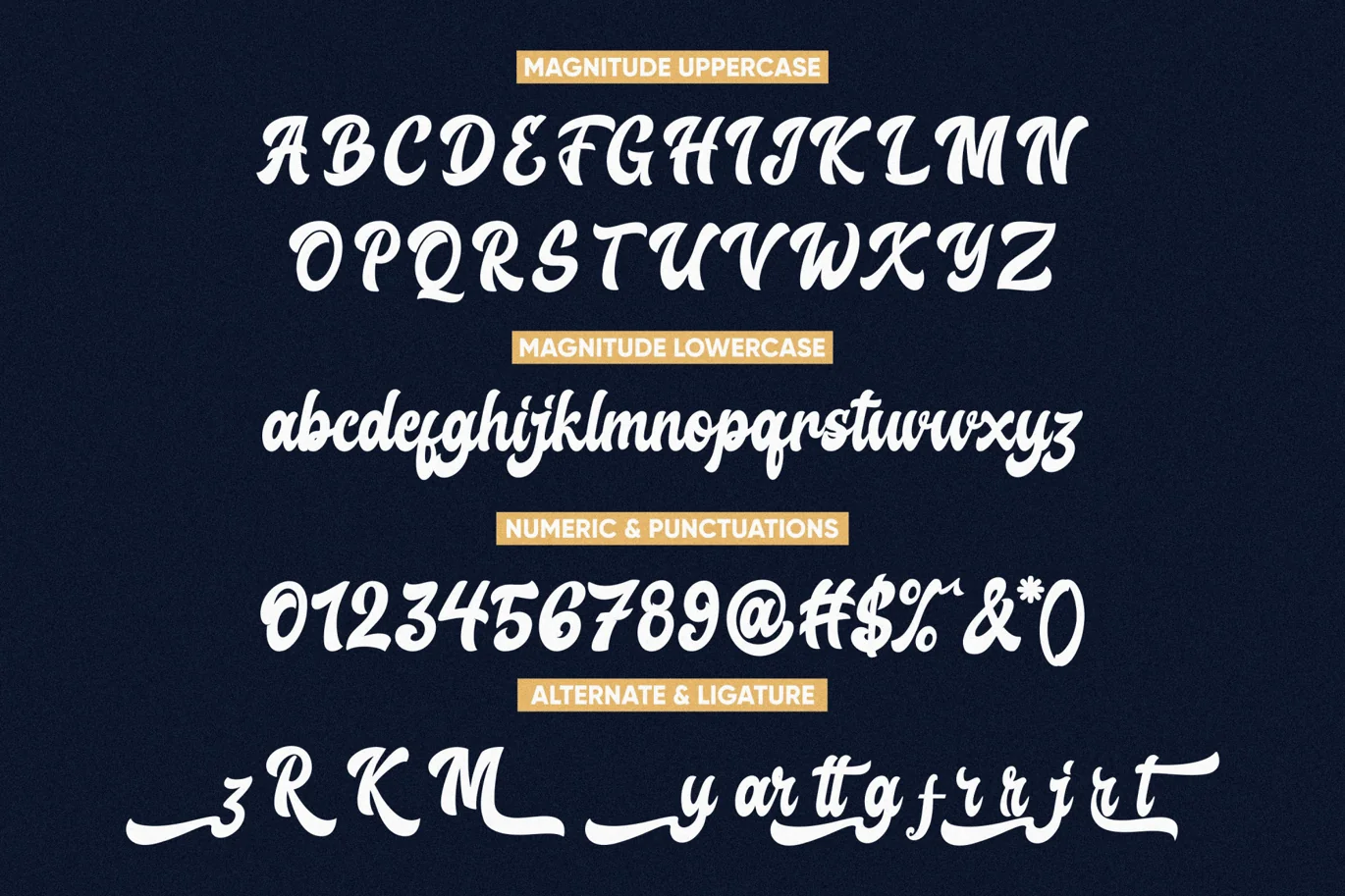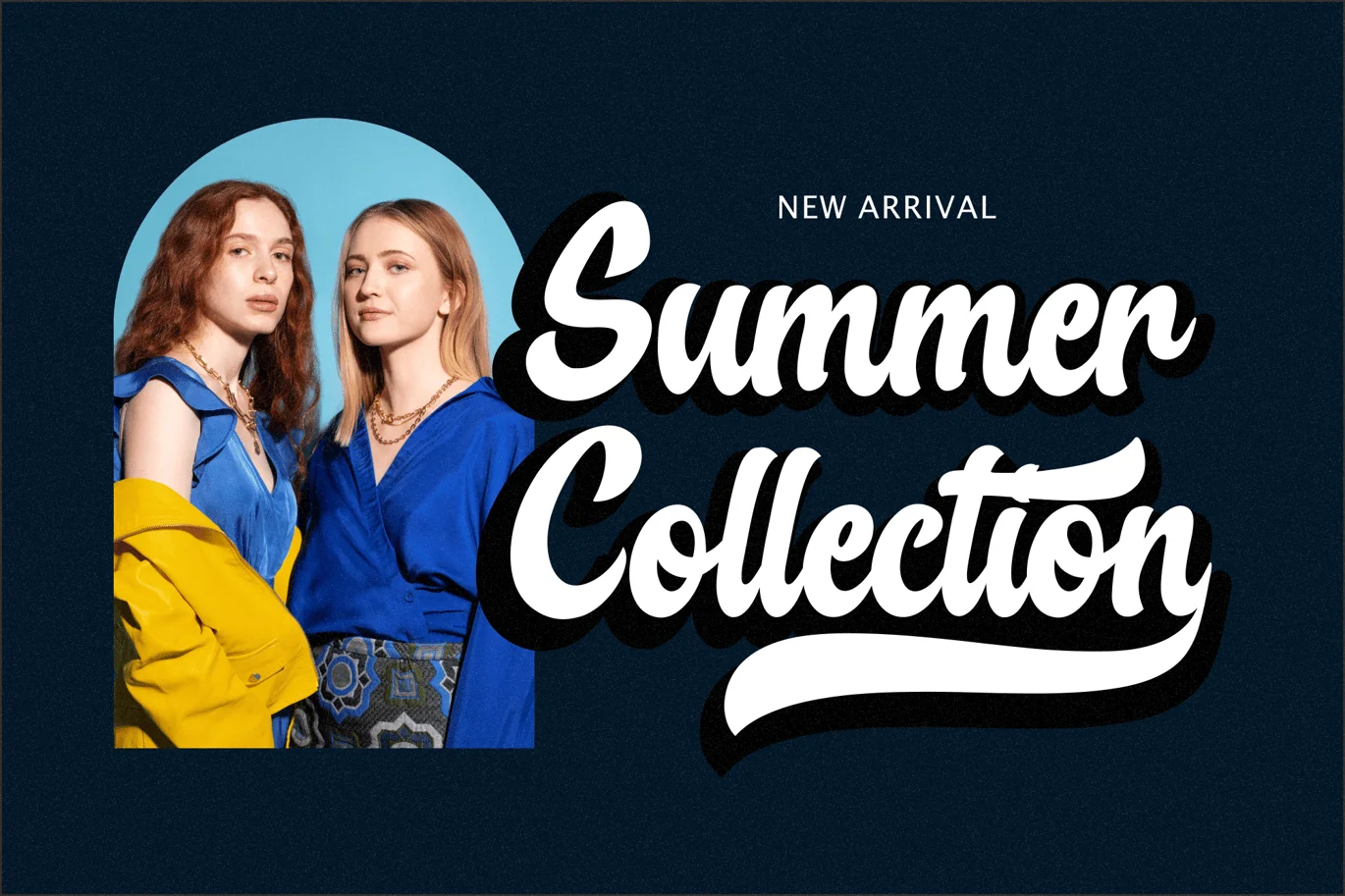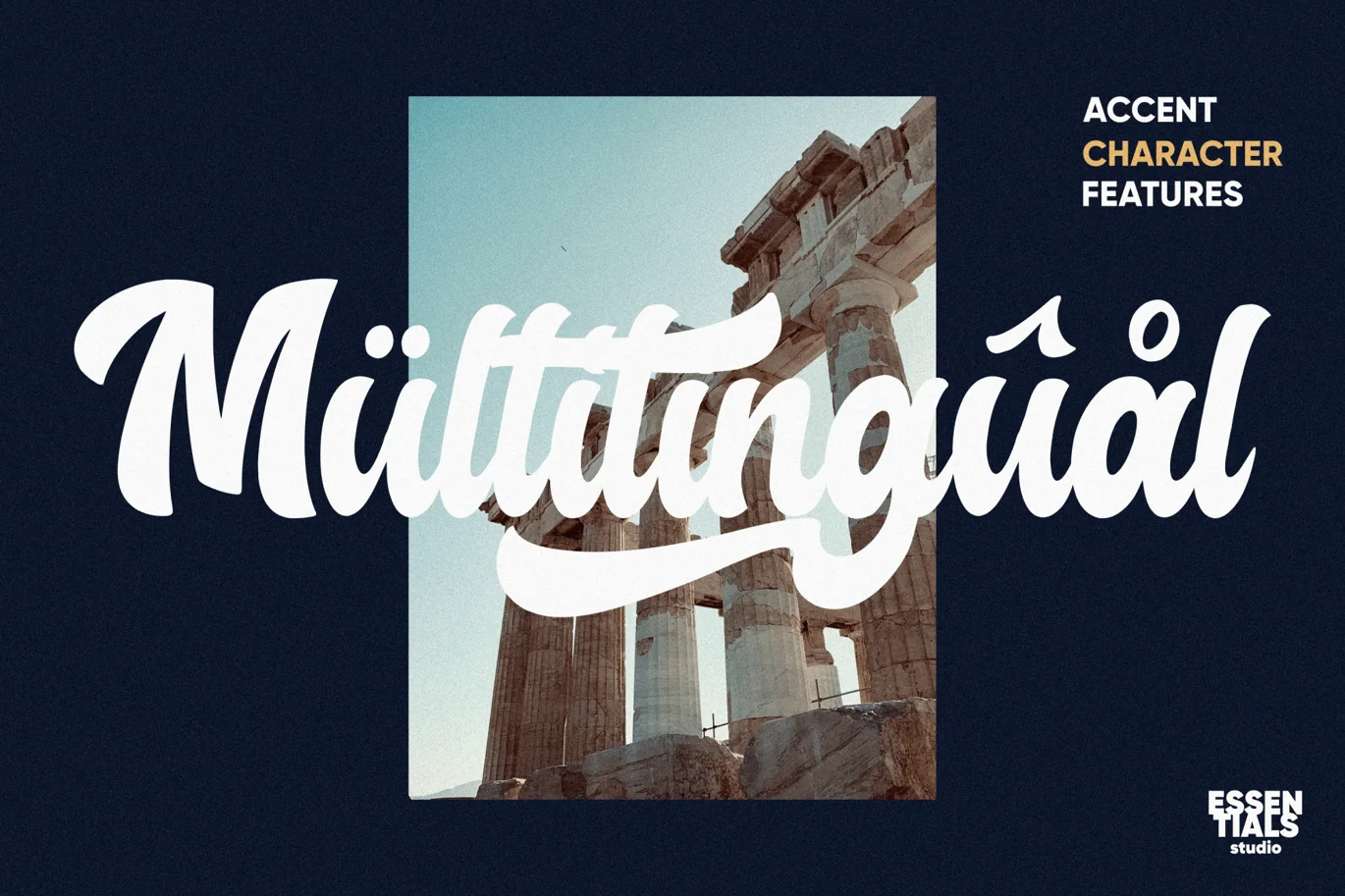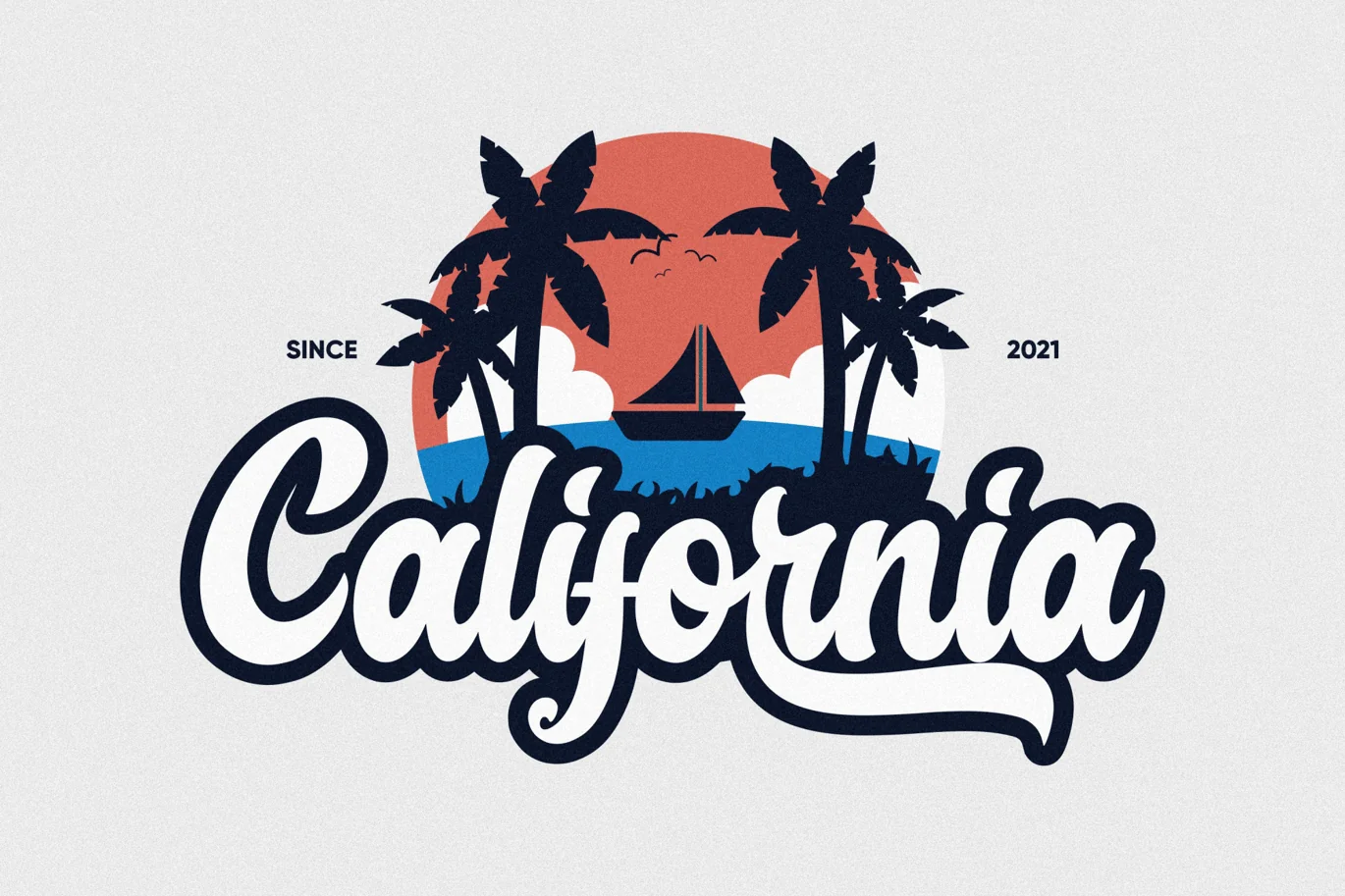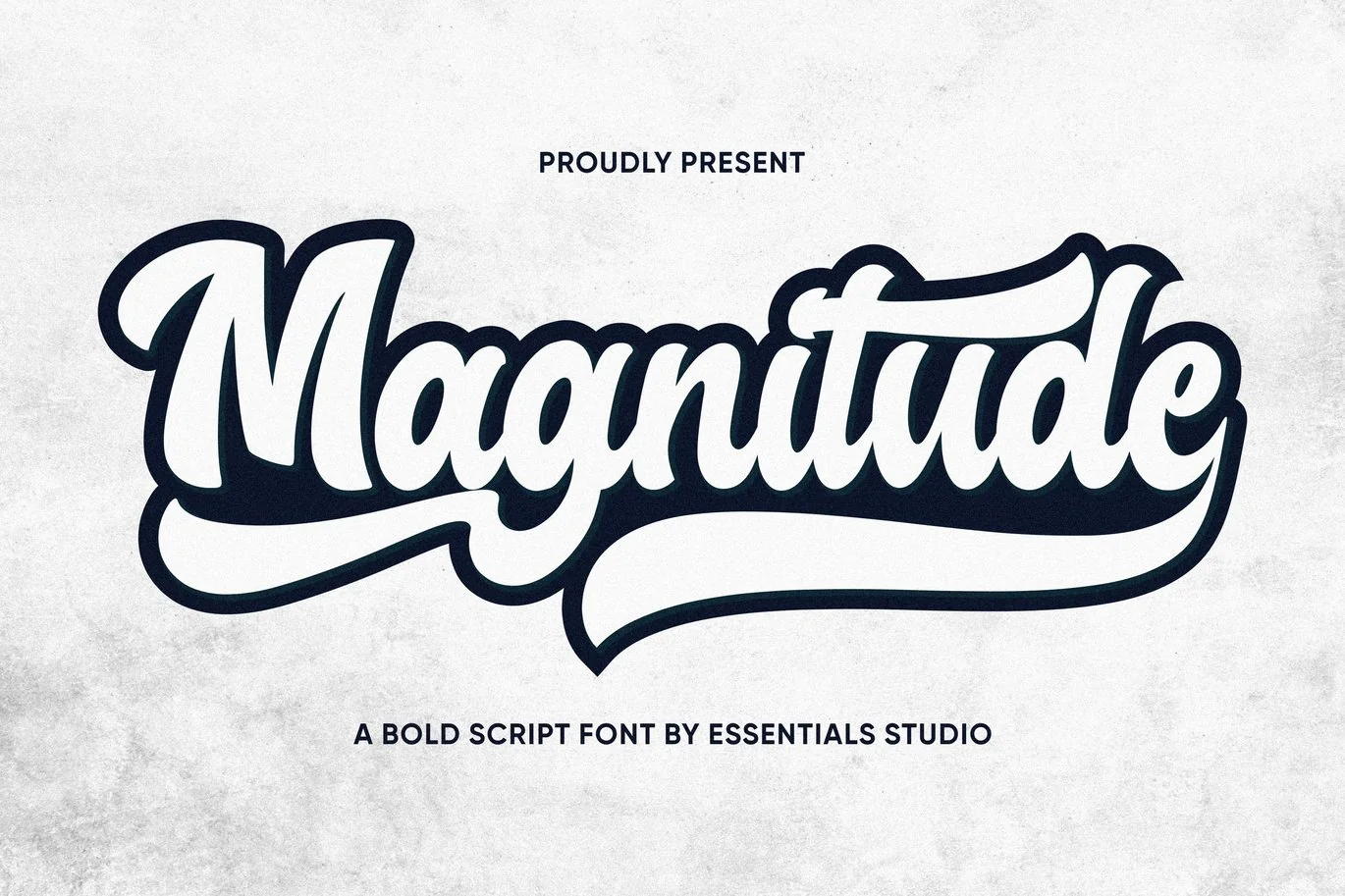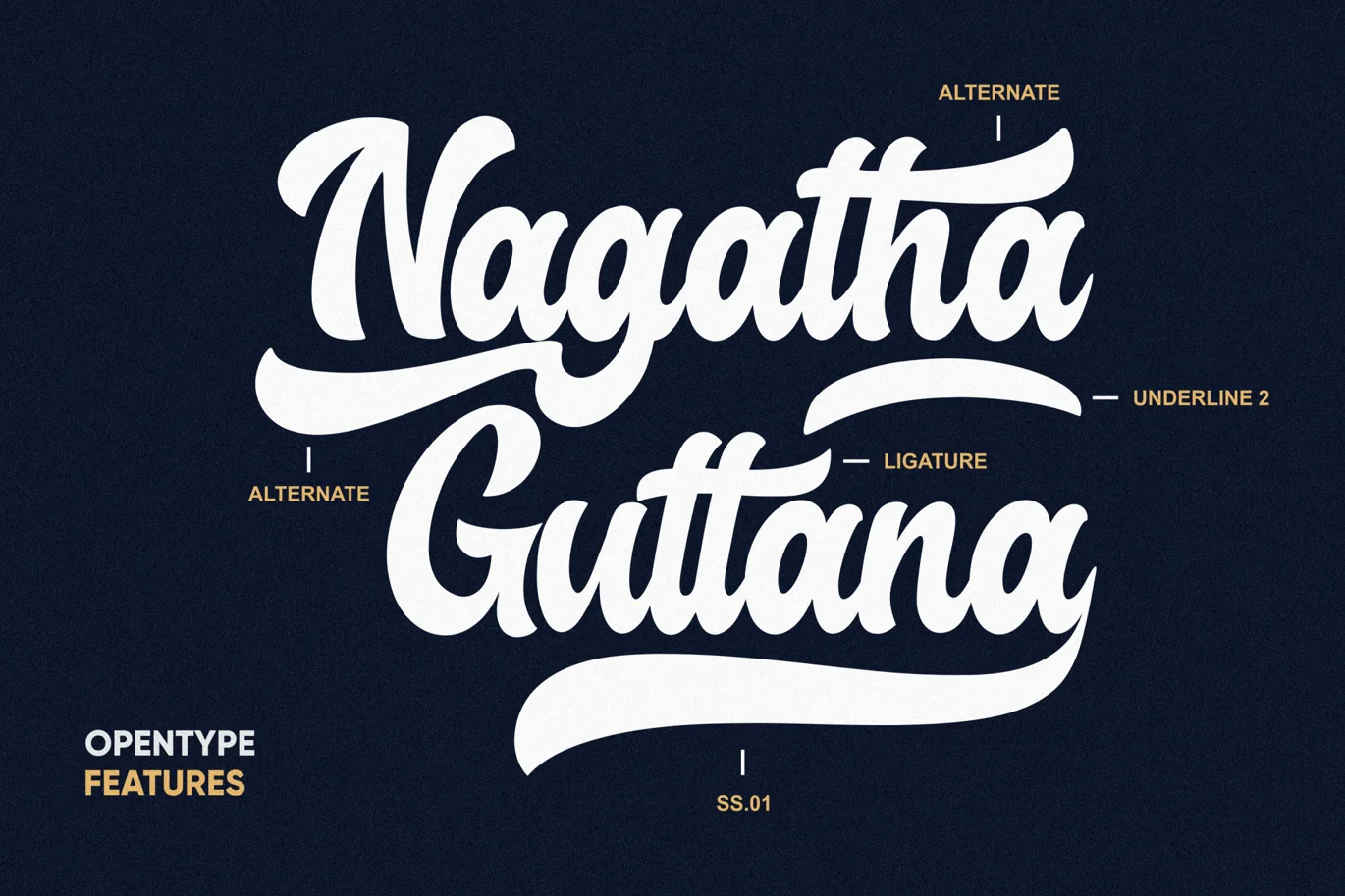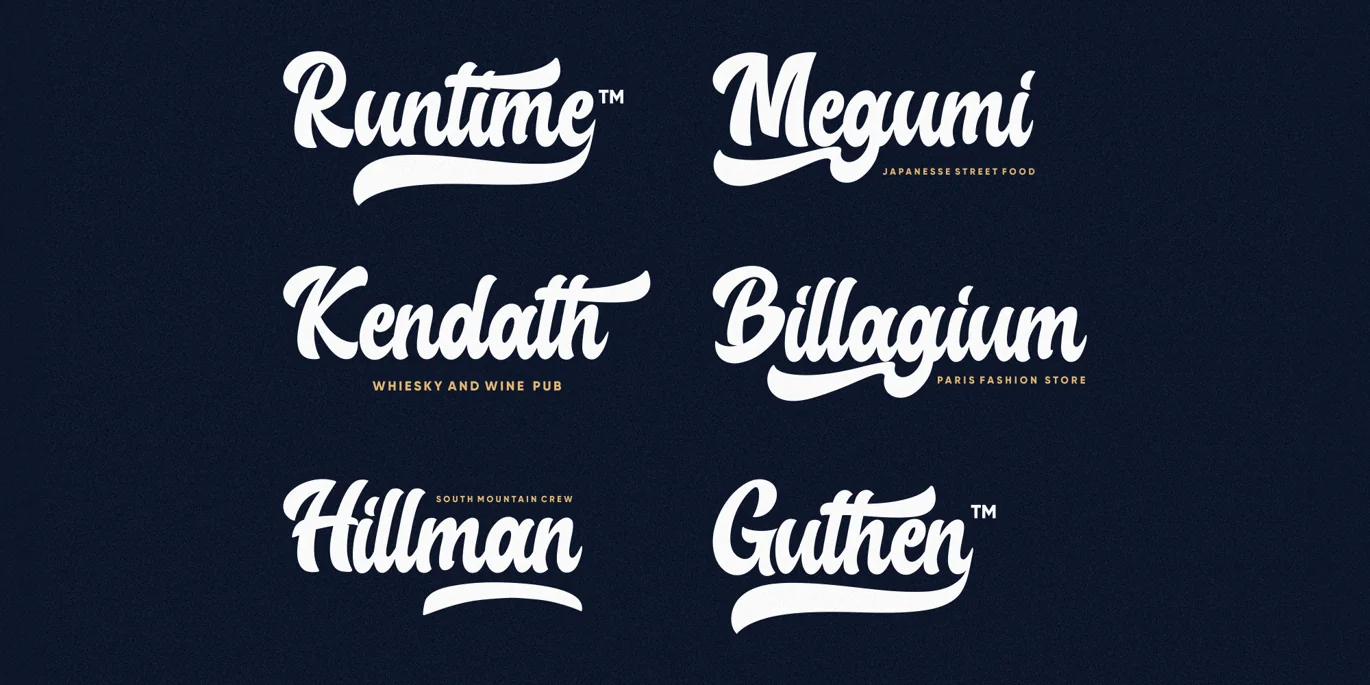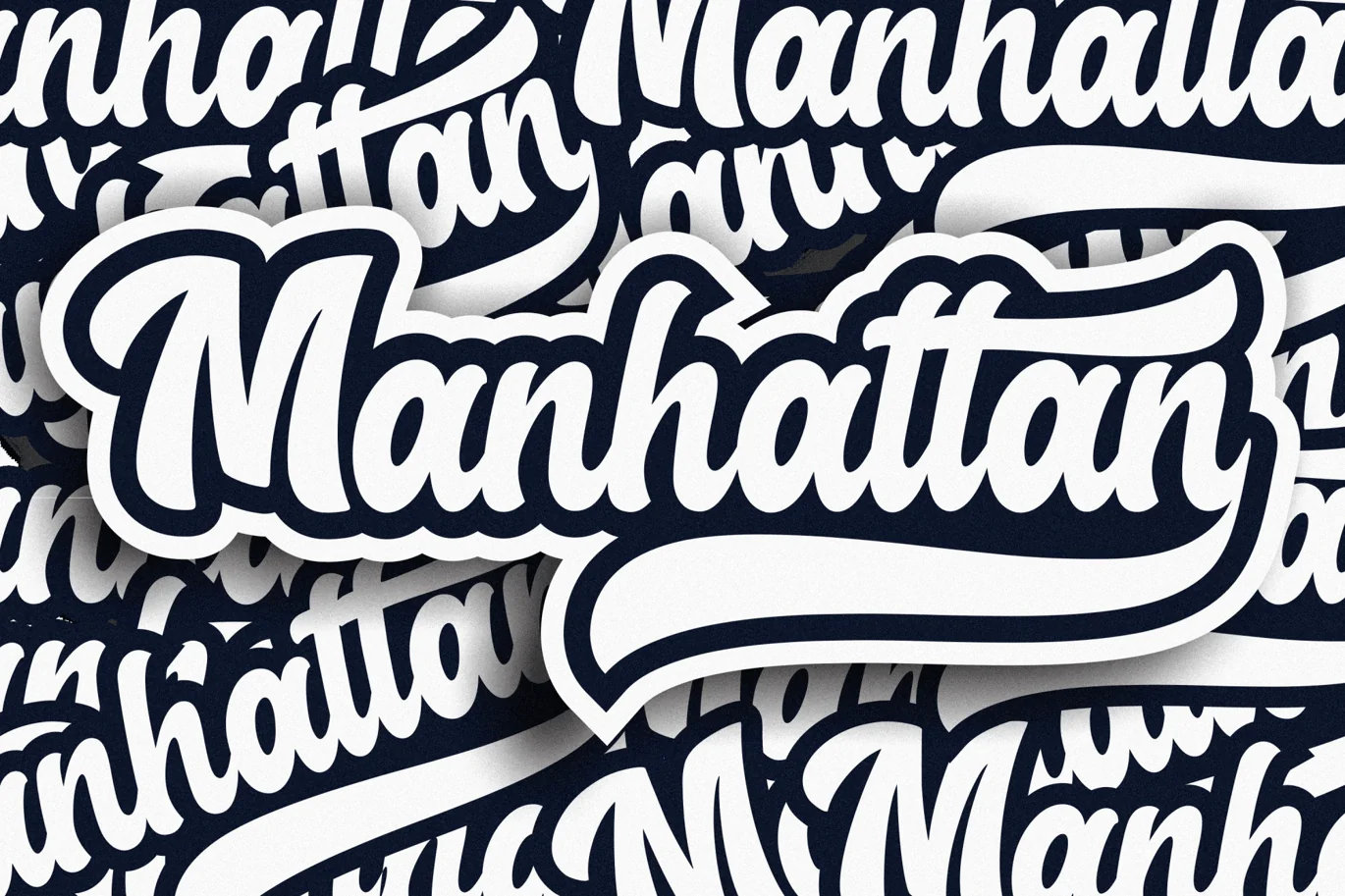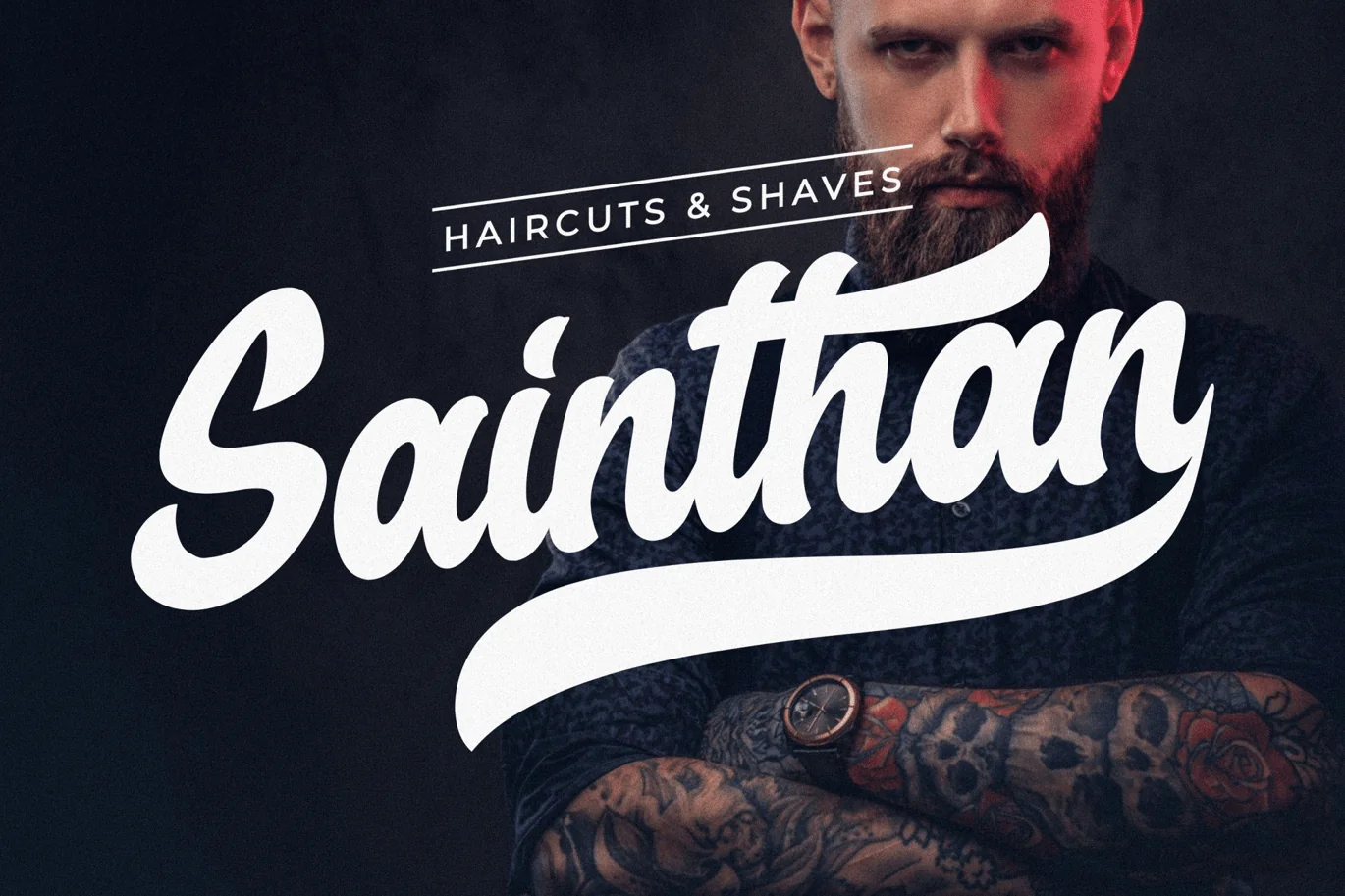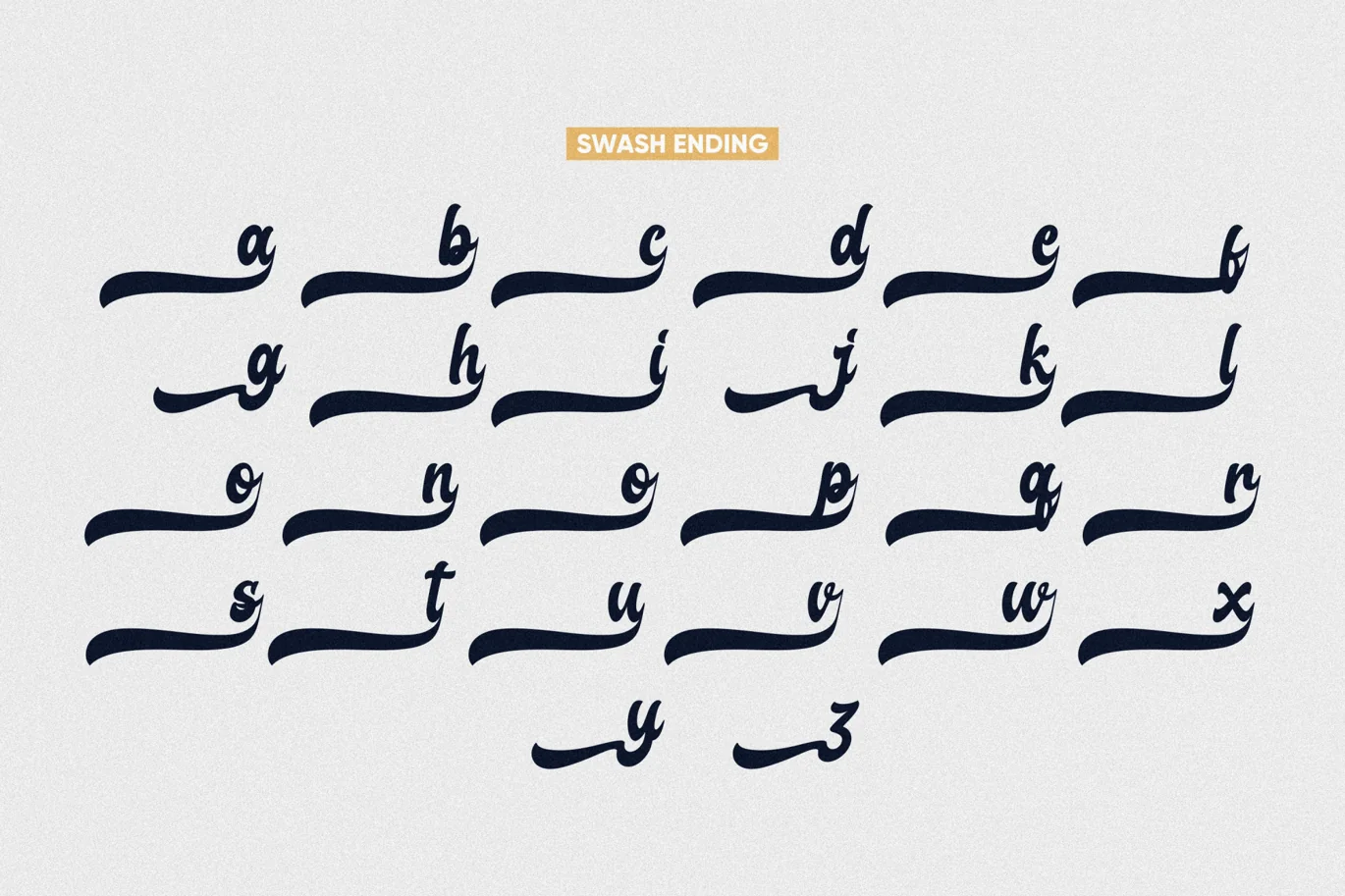
ES Magnitude – Bold Script Logo Font
Introducing by Essentials Studio
Proudly Present, Magnitude
Magnitude Is a Handwritten Monoline Font with love swash
Magnitude is perfect for product packaging, branding project, megazine, social media, wedding, or just used to express words above the background.
This Font Also Multilingual Support